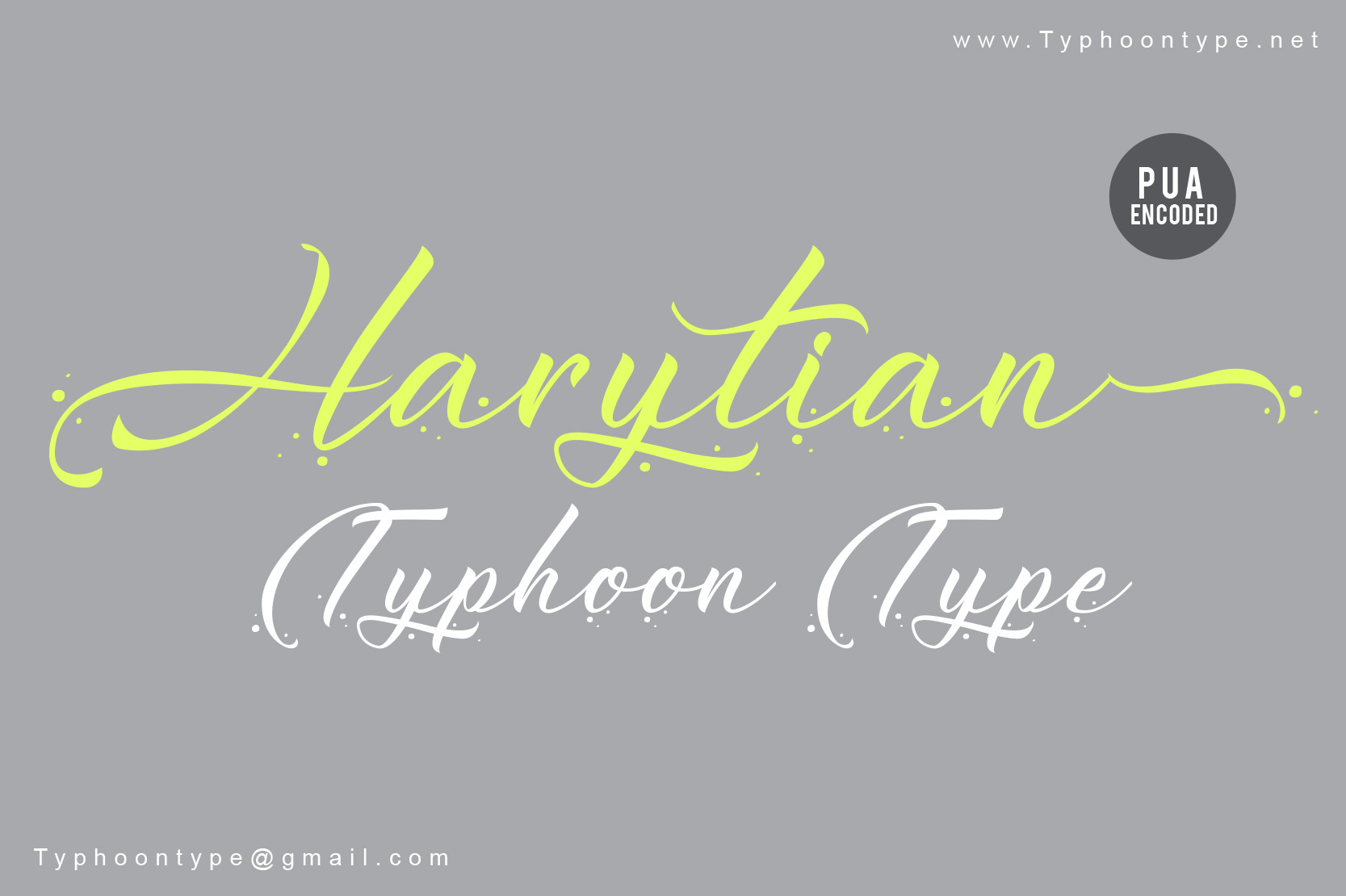
Harytian font
Harytian : Type ) after word to get the ending swash. Example : Harytian) This Font perfect for logos, name tag, advertising, product packaging, clothing, social media & greeting cards.